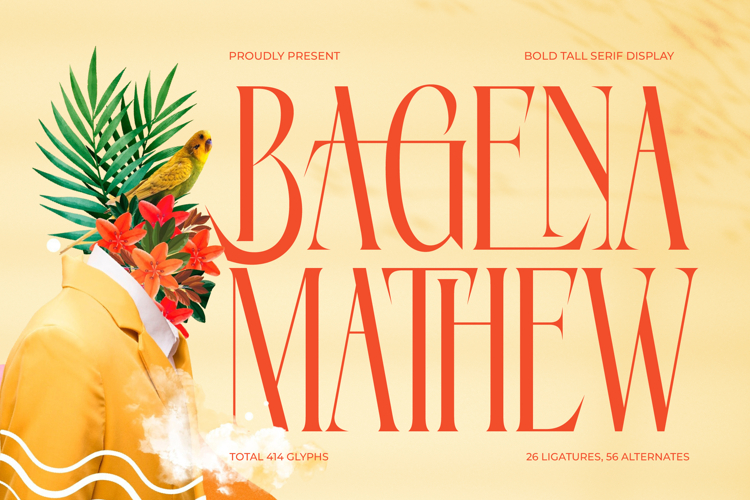
Bagena Mathew - Bold Tall Serif Display
Elevate your designs with Font Bagena Mathew - Bold Tall Serif Display Serif Display, a typeface crafted for undeniable impact and refined elegance. This distinctive serif display font commands attention with its bold, tall proportions and striking high-contrast letterforms. Each character is meticulously designed to exude sophistication, blending classic serif aesthetics with a contemporary flair, making it the ultimate choice for projects that demand a powerful yet graceful visual presence.
Unleash unparalleled visual prestige across your most ambitious projects. Font Bagena Mathew - Bold Tall Serif Display is perfectly suited for luxury branding, high-end packaging, fashion editorial design, and sophisticated advertising campaigns. Its inherent elegance makes it ideal for magazine layouts, invitations, website headers, and any application where conveying a sense of premium quality and timeless style is paramount. This font ensures your message is delivered with authority and grace.